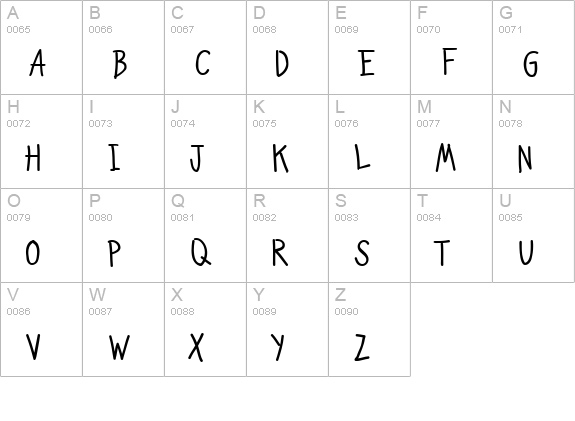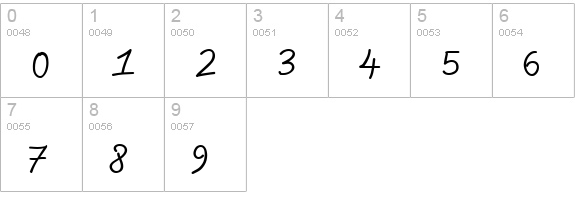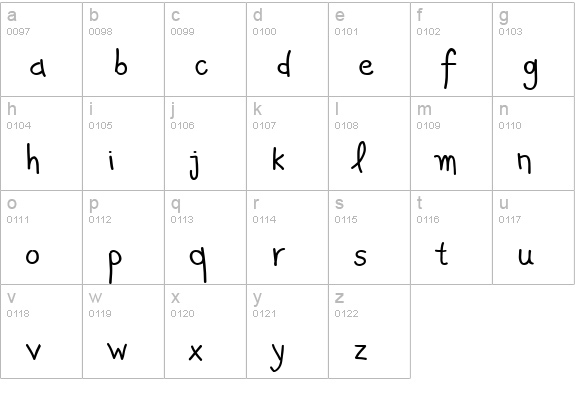
PFKidsPro-GradeFive Font Details
PFKidsPro-GradeFive font is a charming and playful typeface designed specifically for young learners in Grade Five. Its whimsical style and legible design make it perfect for educational materials, children's books, and other creative projects aimed at this age group. The font features rounded edges and a friendly appearance that will engage young readers and add a touch of fun to any text. Best of all, PFKidsPro-GradeFive font is available for free download at FontsMarket.com. This means that educators, parents, and designers can easily access this delightful font to enhance their materials without any cost. Whether you're creating worksheets, posters, or invitations, PFKidsPro-GradeFive font is a fantastic choice for adding a touch of youthful energy to your projects. Download PFKidsPro-GradeFive font today and bring a splash of creativity and joy to your Grade Five projects!